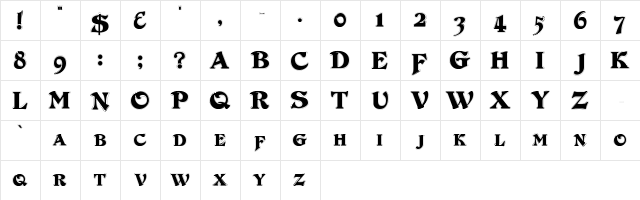
DuvallSmallCapsOutline Normal Font Preview
DuvallSmallCapsOutline Normal
Design Context for DuvallSmallCapsOutline Typeface
DuvallSmallCapsOutline is built around its visual character rather than neutral utility — its distinctive forms are designed to make an impression at display sizes.
Font Pairing: Pair with a clean neutral sans-serif for body copy to let DuvallSmallCapsOutline's character lead without overwhelming the composition.
Pro Tip: Treat DuvallSmallCapsOutline as the centrepiece of your typographic hierarchy. One strong heading set in a decorative face can carry an entire layout.